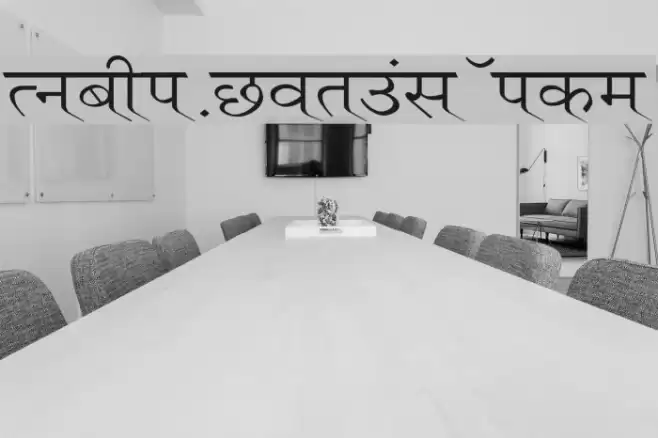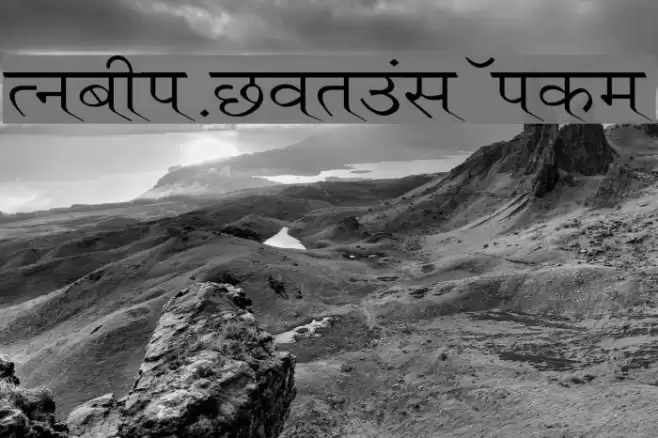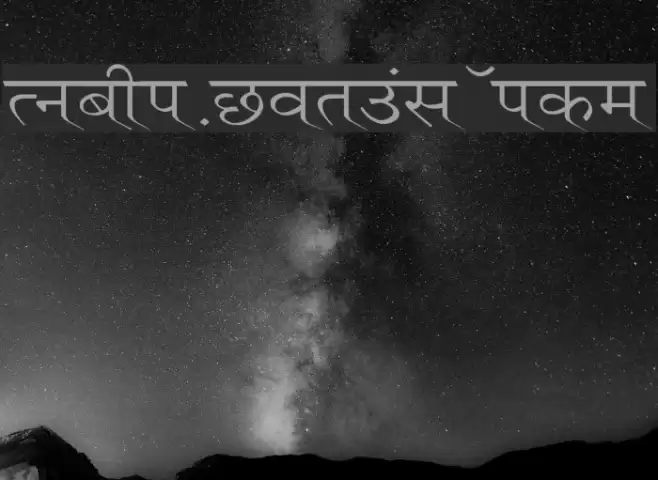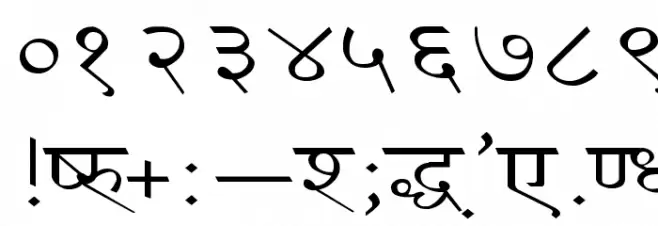
Ruchi-Normal Wide Font
Ruchi-Normal Wide Description
This font features a distinctive Devanagari script with a modern twist. The characters are bold and have a wide stance, providing a strong visual impact. The strokes are clean and well-defined, with a moderate contrast between thick and thin lines. The overall appearance is both traditional and contemporary, making it versatile for various design needs. The spacing between characters is normal, ensuring readability while maintaining an elegant flow. This font is suitable for projects that require a blend of cultural authenticity and modern aesthetics.
A bold, wide Devanagari script with a modern and traditional blend from Uncategorized fonts.
- Proposed Projects: Ideal for cultural publications, branding, signage, and digital media that require a traditional yet modern look.
- Use Case: Headlines, Logos, Signage